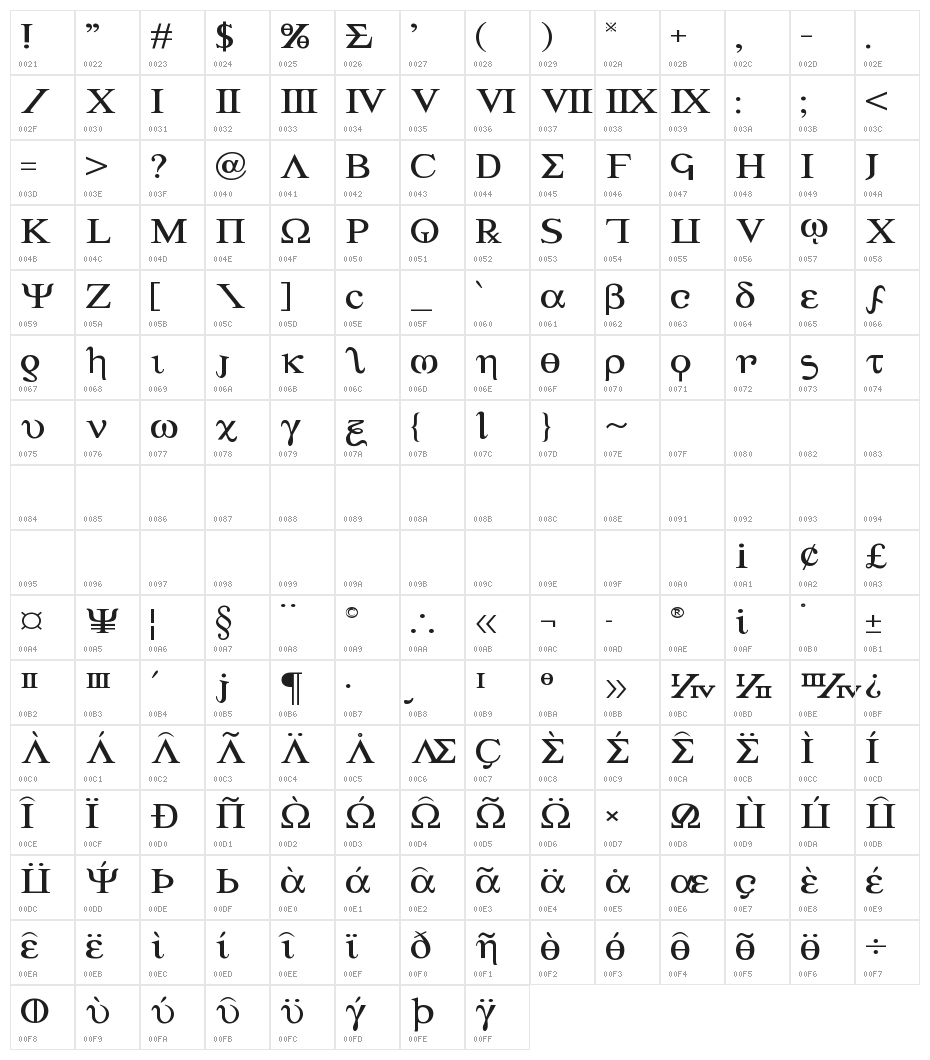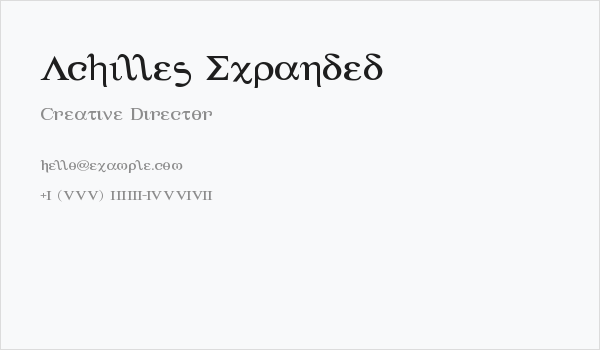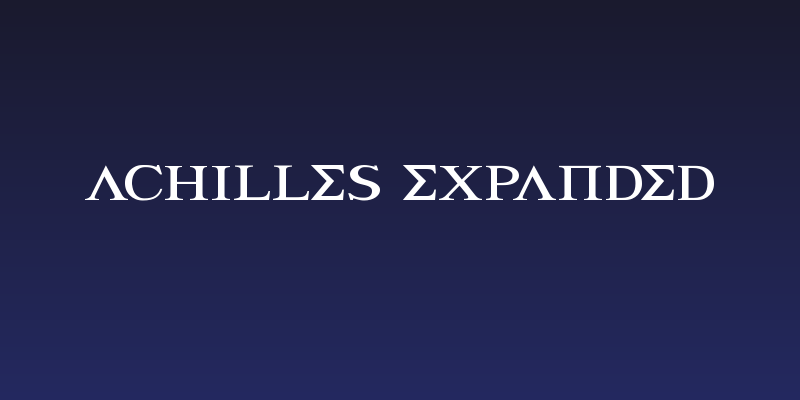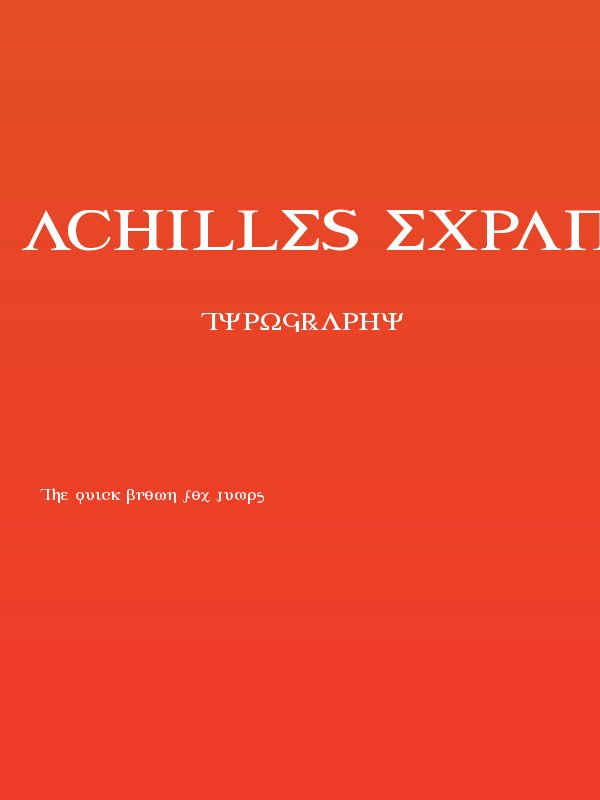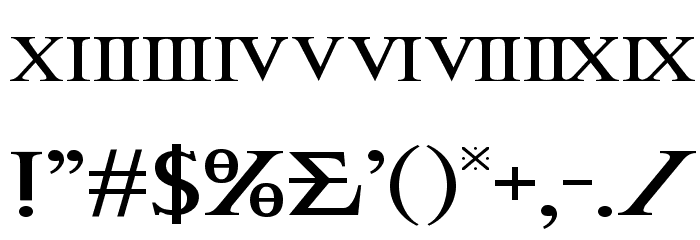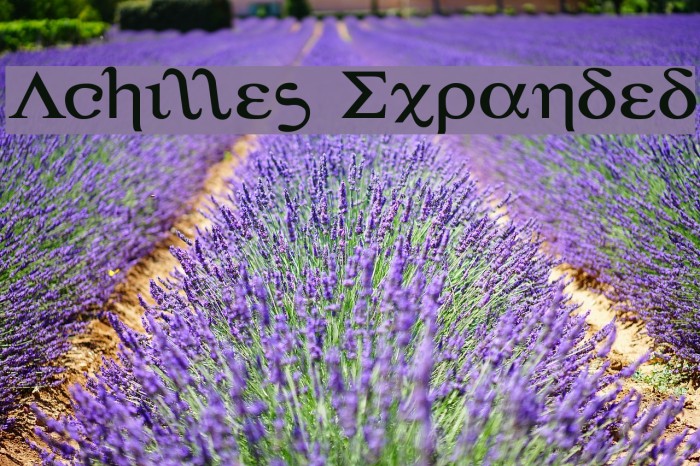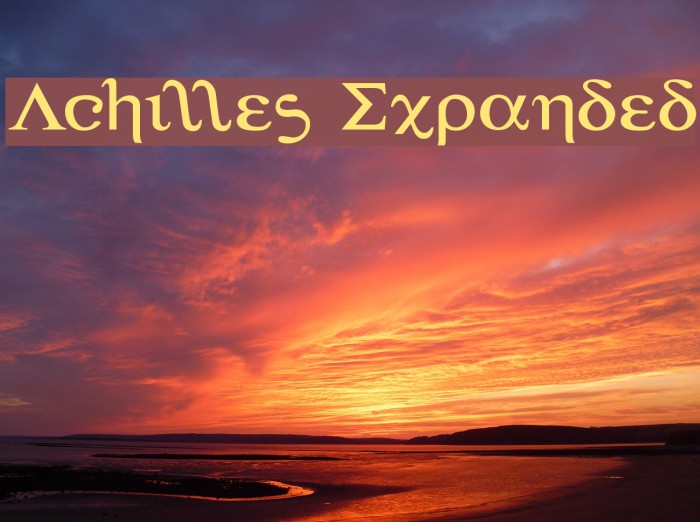
Achilles Expanded Font
Achilles Expanded Description
This font features a distinctive blend of classical and modern elements, characterized by its sharp serifs and elegant curves. The uppercase letters exhibit a strong presence with their bold strokes and angular serifs, while the lowercase letters maintain a harmonious flow with smooth, rounded forms. The numerals are consistent with the overall style, offering clarity and balance. Special characters are thoughtfully designed, integrating seamlessly with the alphabet. The font's expanded width provides a sense of grandeur and readability, making it suitable for impactful headlines and titles.
| Proposed Projects | This font is perfect for projects that require a strong, authoritative presence, such as branding, editorial design, and signage. Its classical yet modern appeal makes it suitable for luxury brands and high-end publications. |